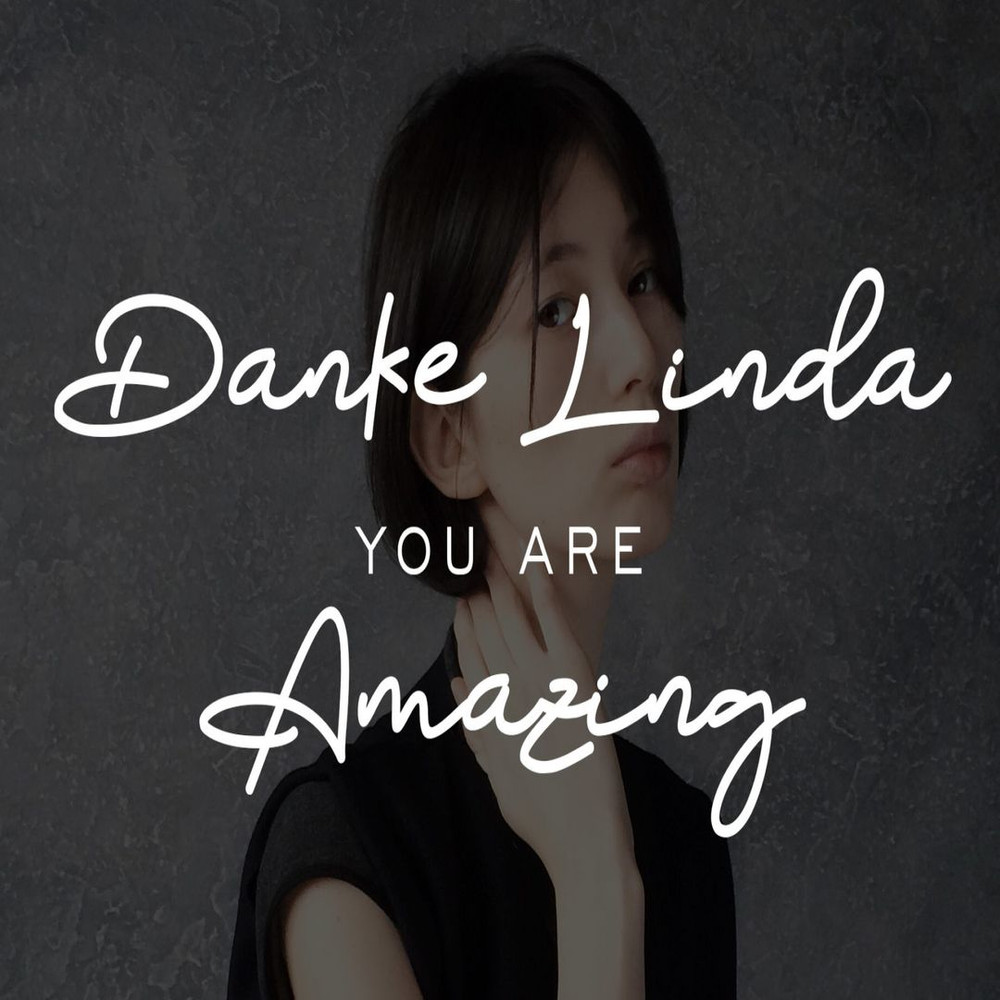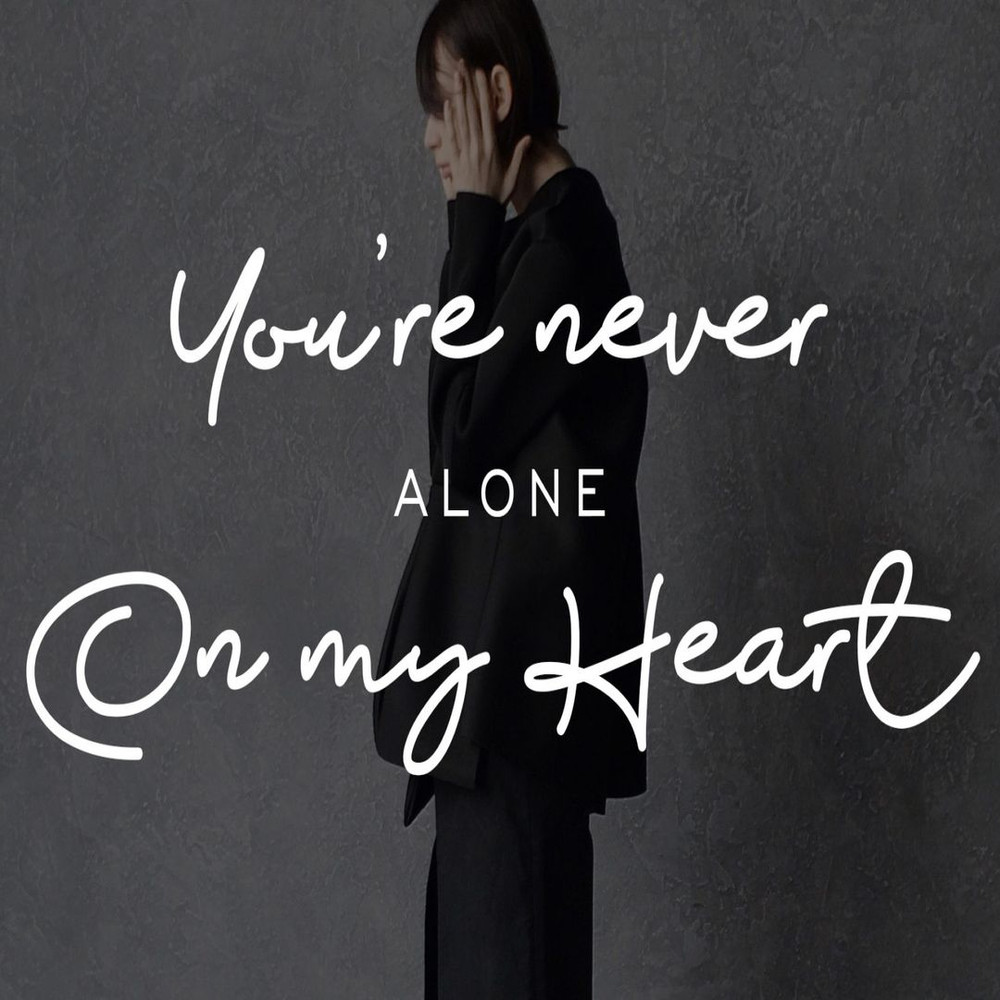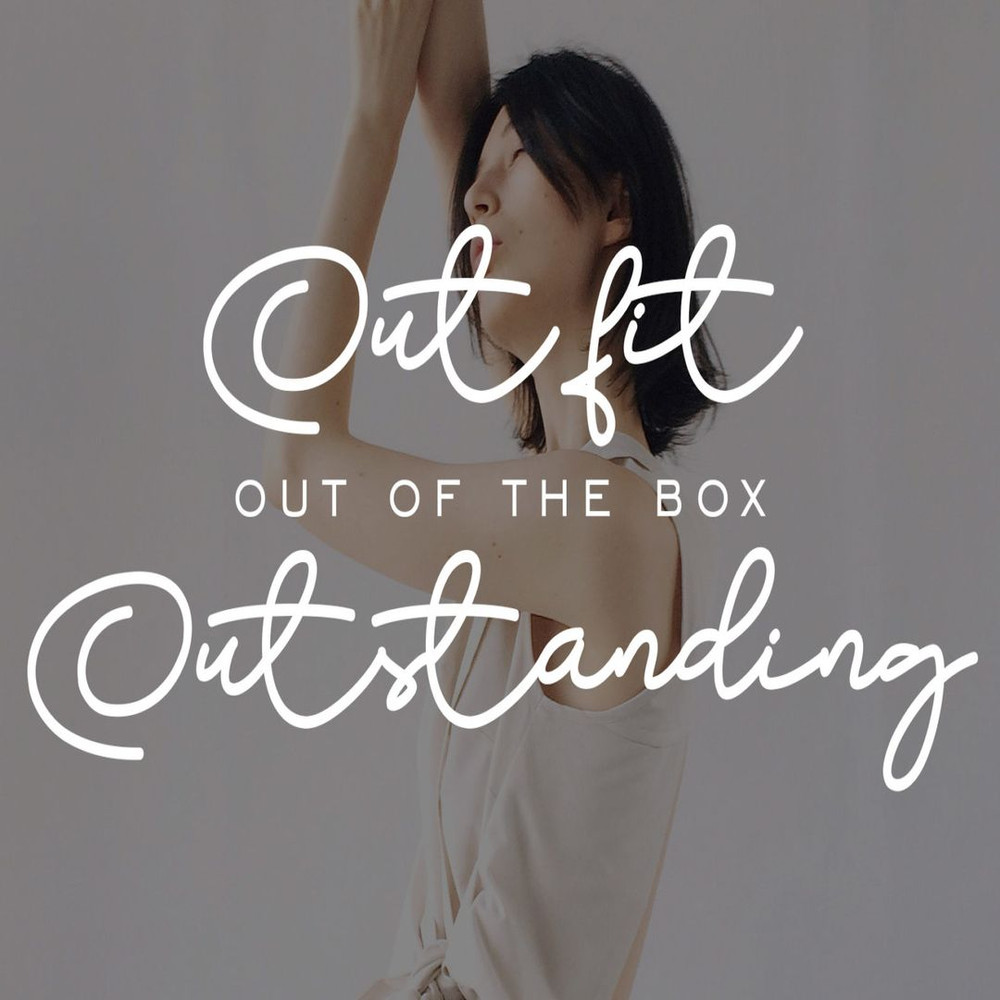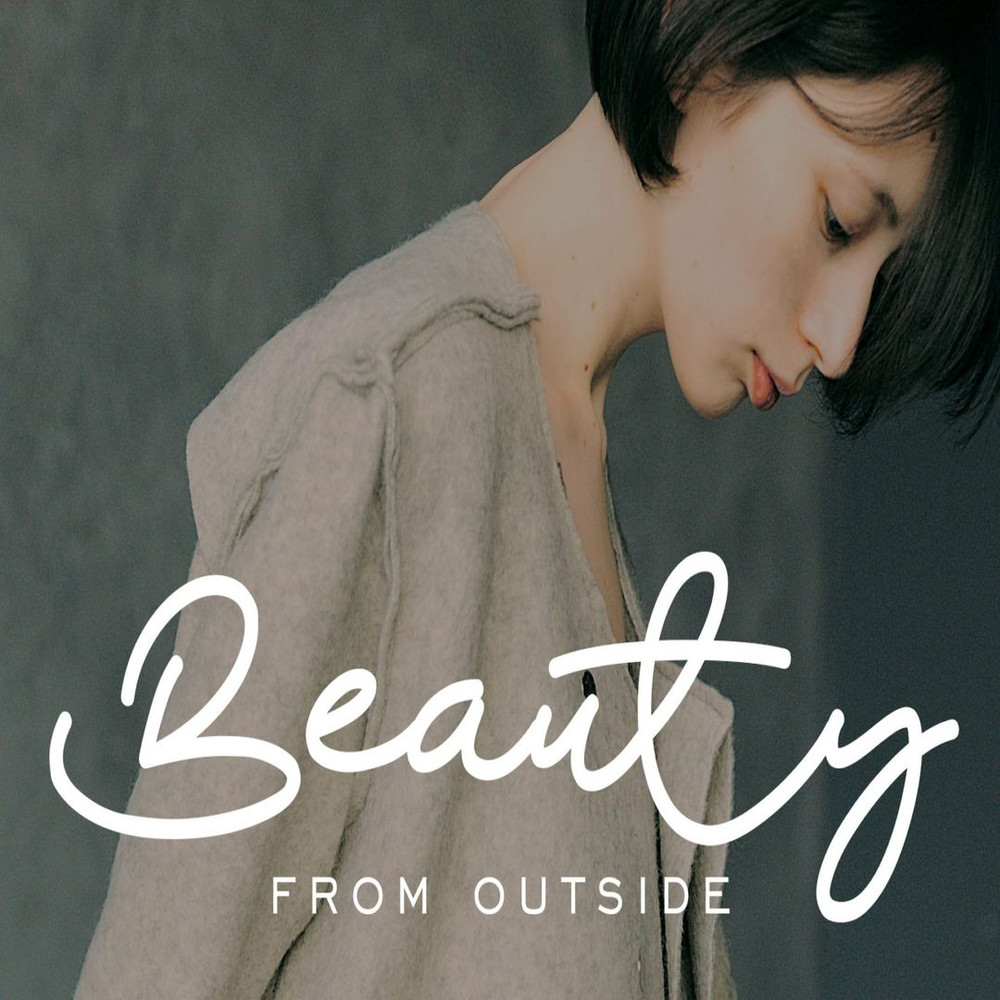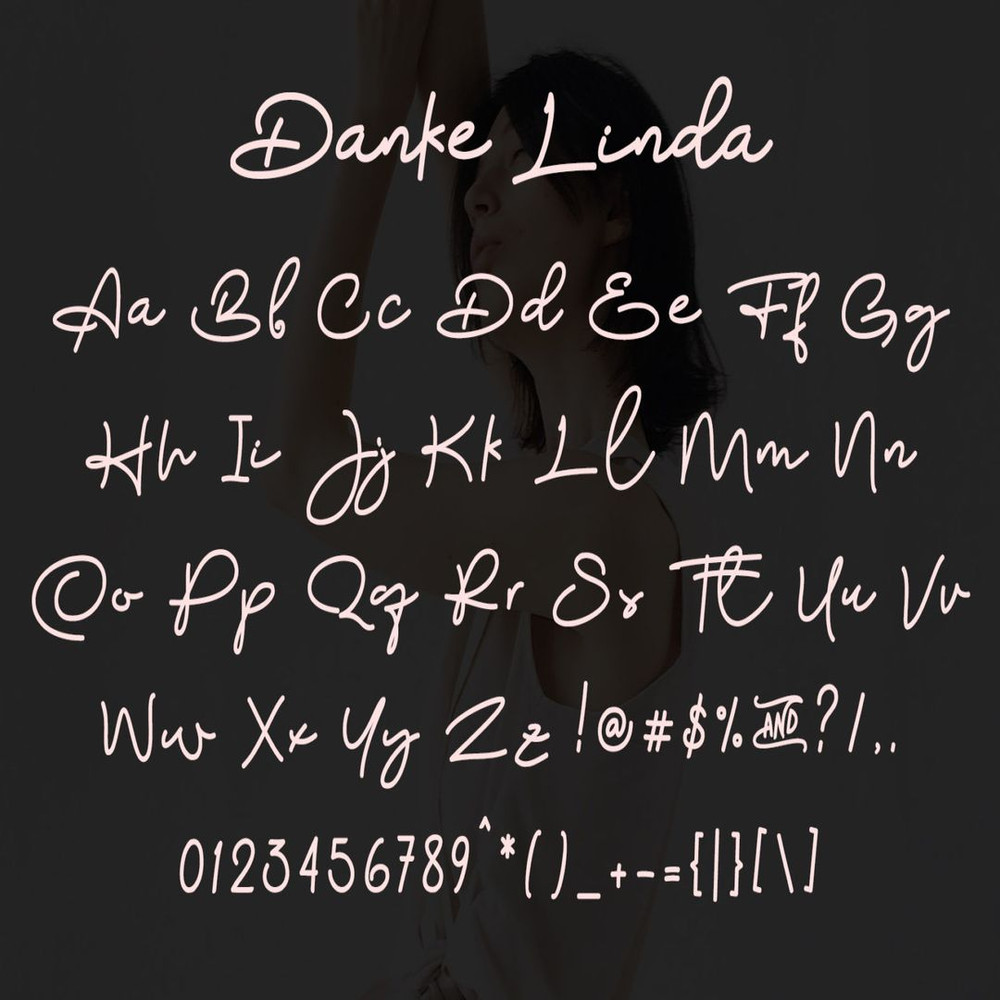
Danke Linda is a font with awesome and classy taste, comes with a natural touch, so many ligatures. We keep this font looks classy, readable, elegant, stylish, catchy, and absolutely easy to use.
Danke Linda is the great choice for a watermark on branding, design, wedding, photography, signature, logo design, album cover, business card, quotes, and much another design project.
Stylish handwritten style